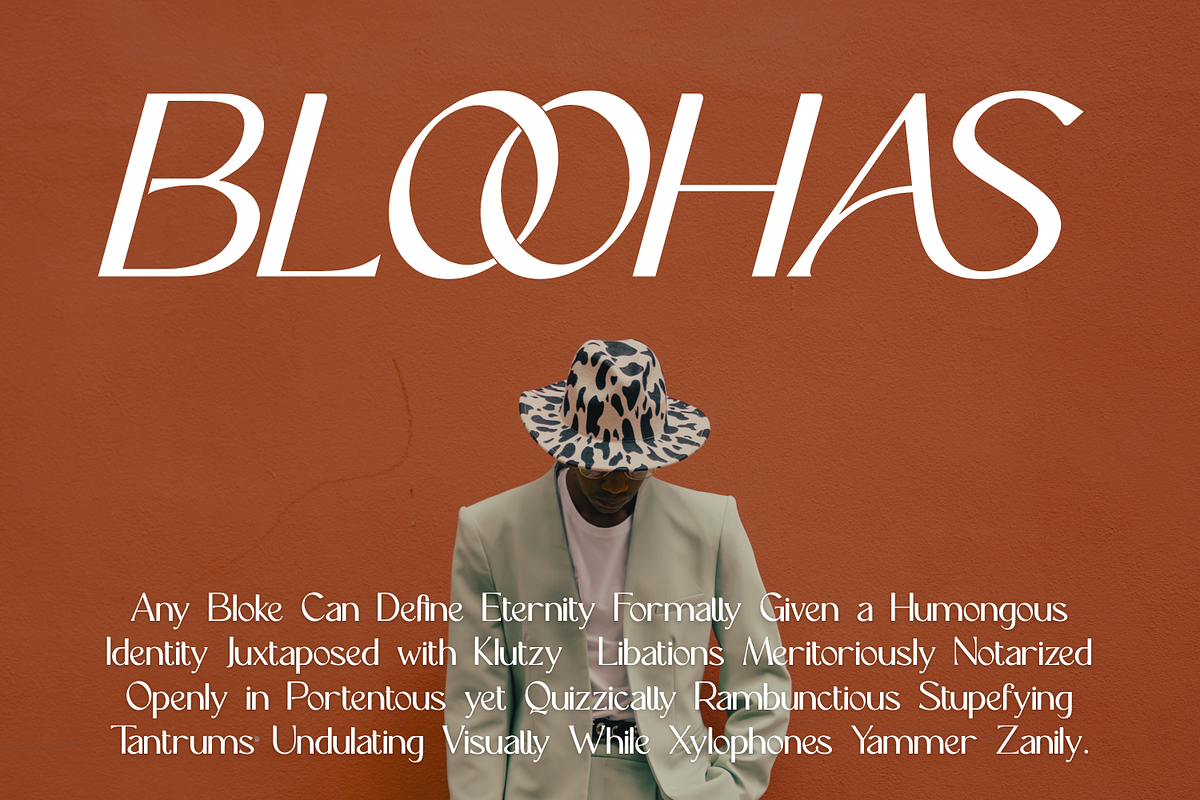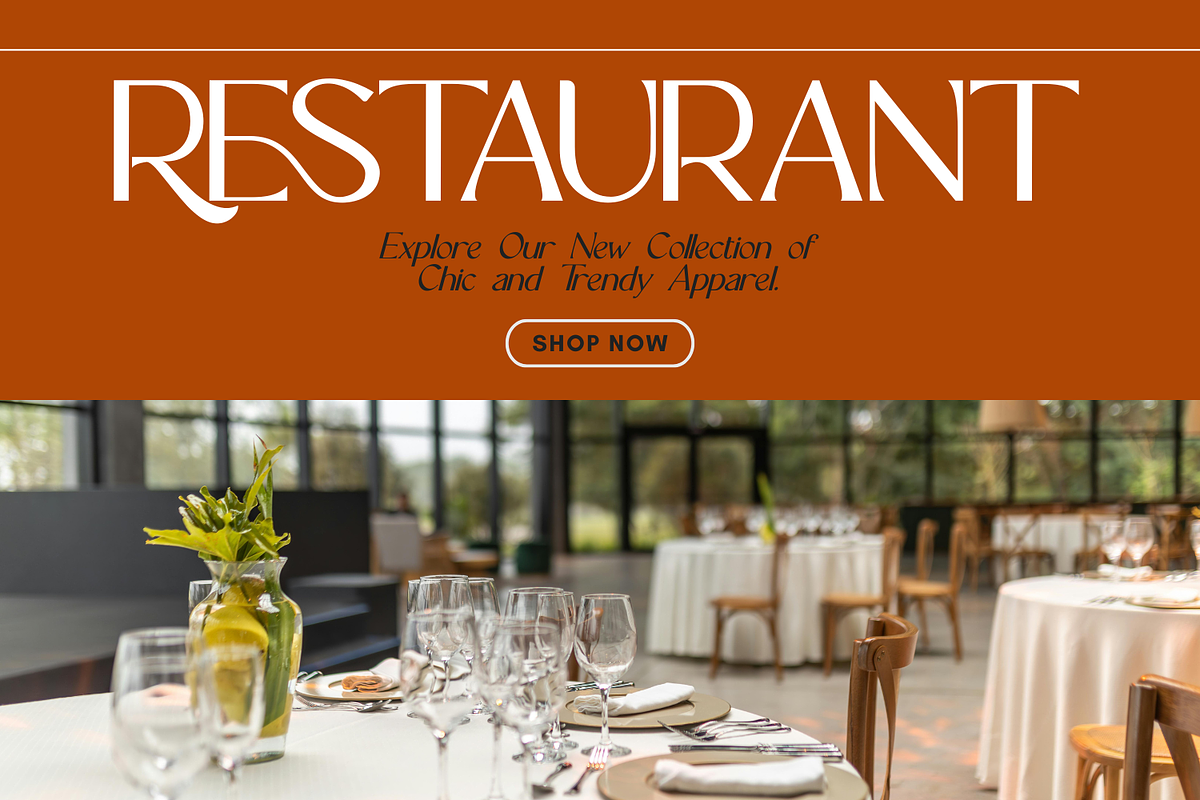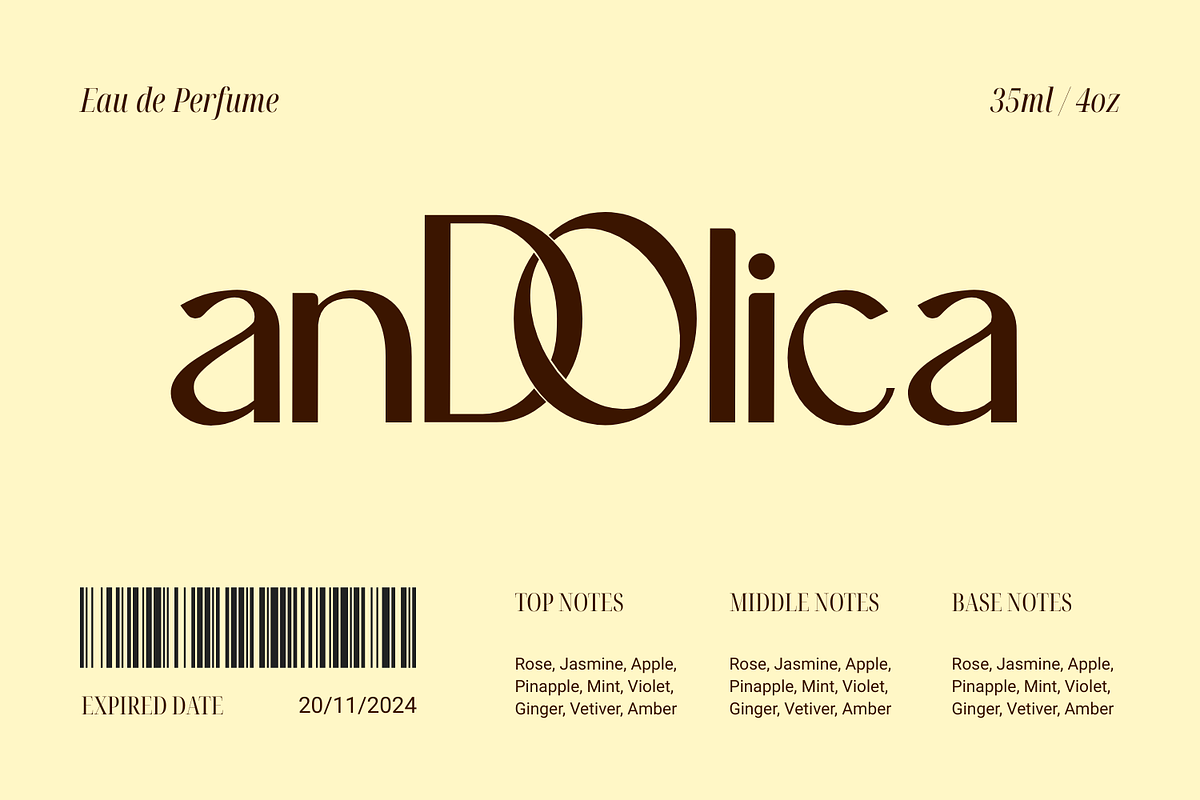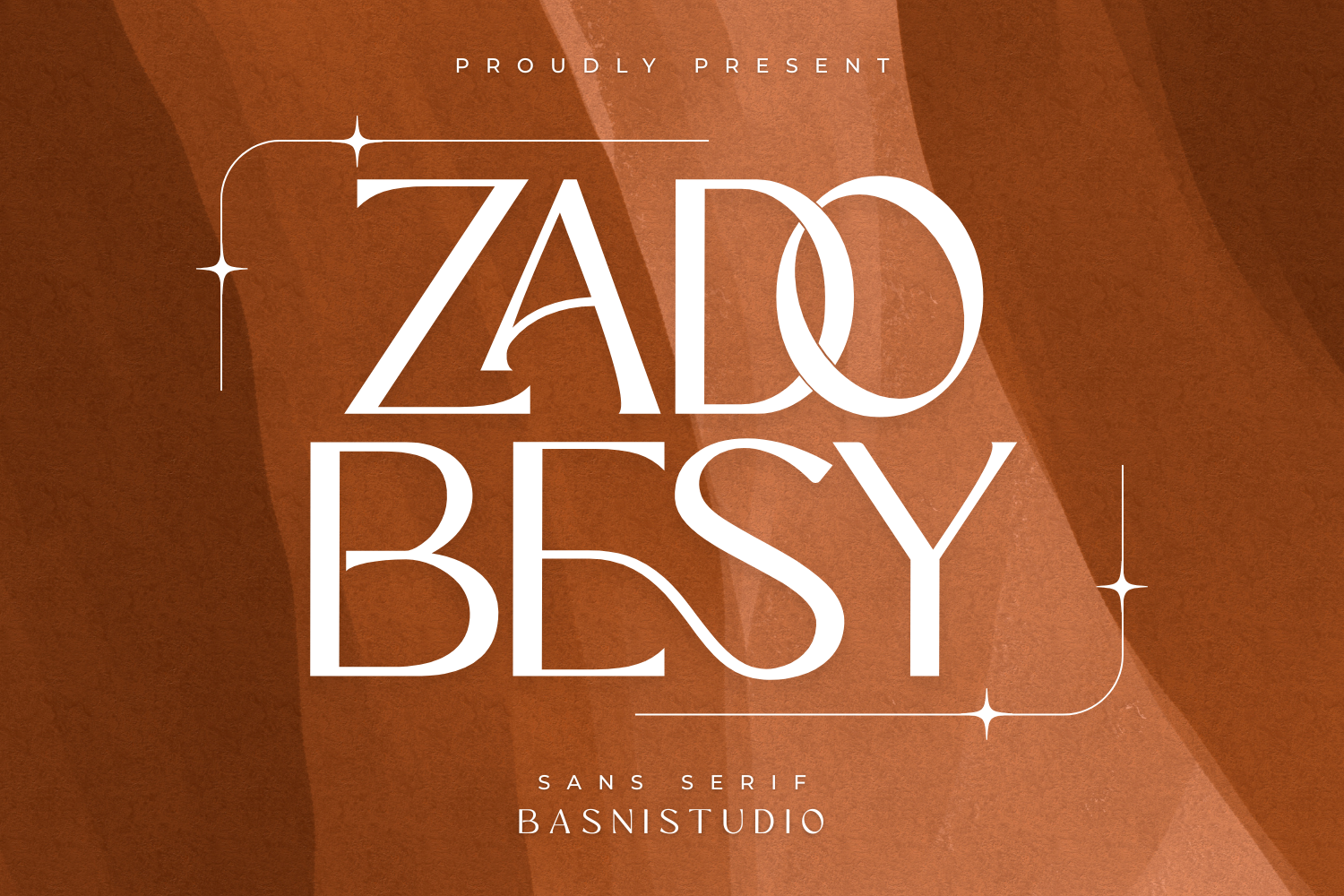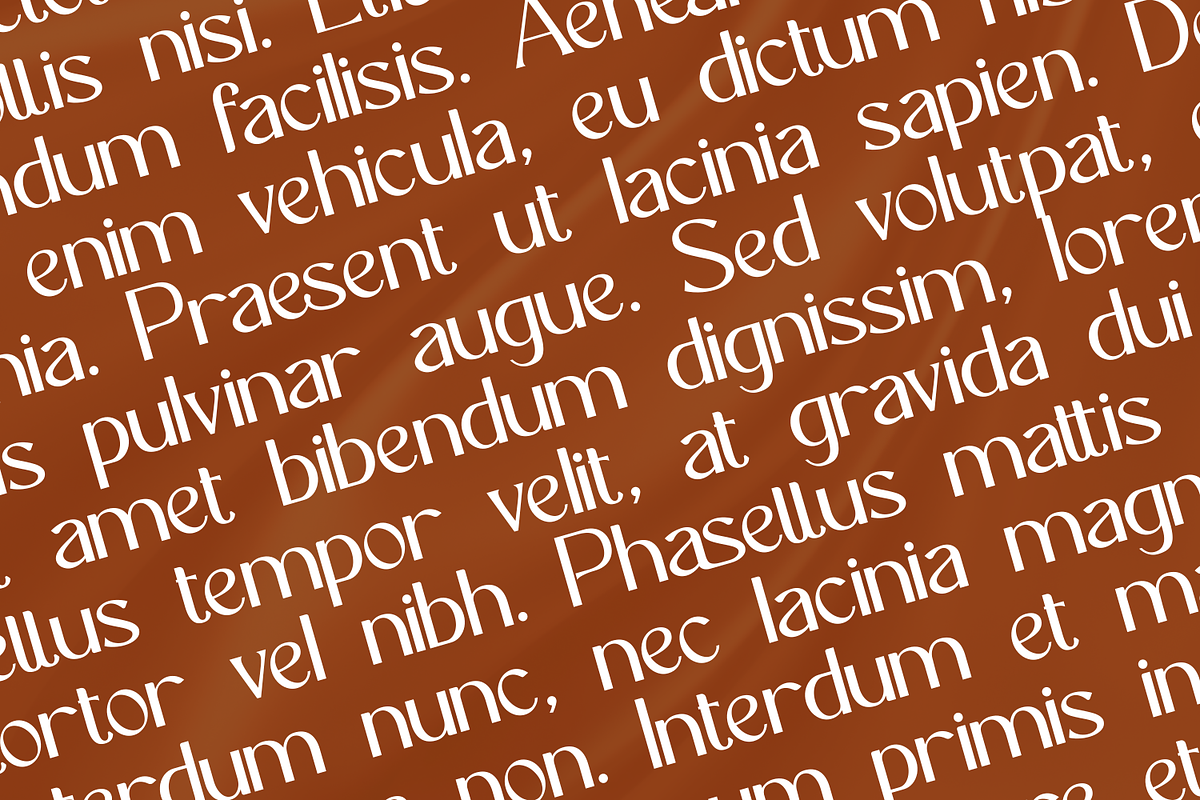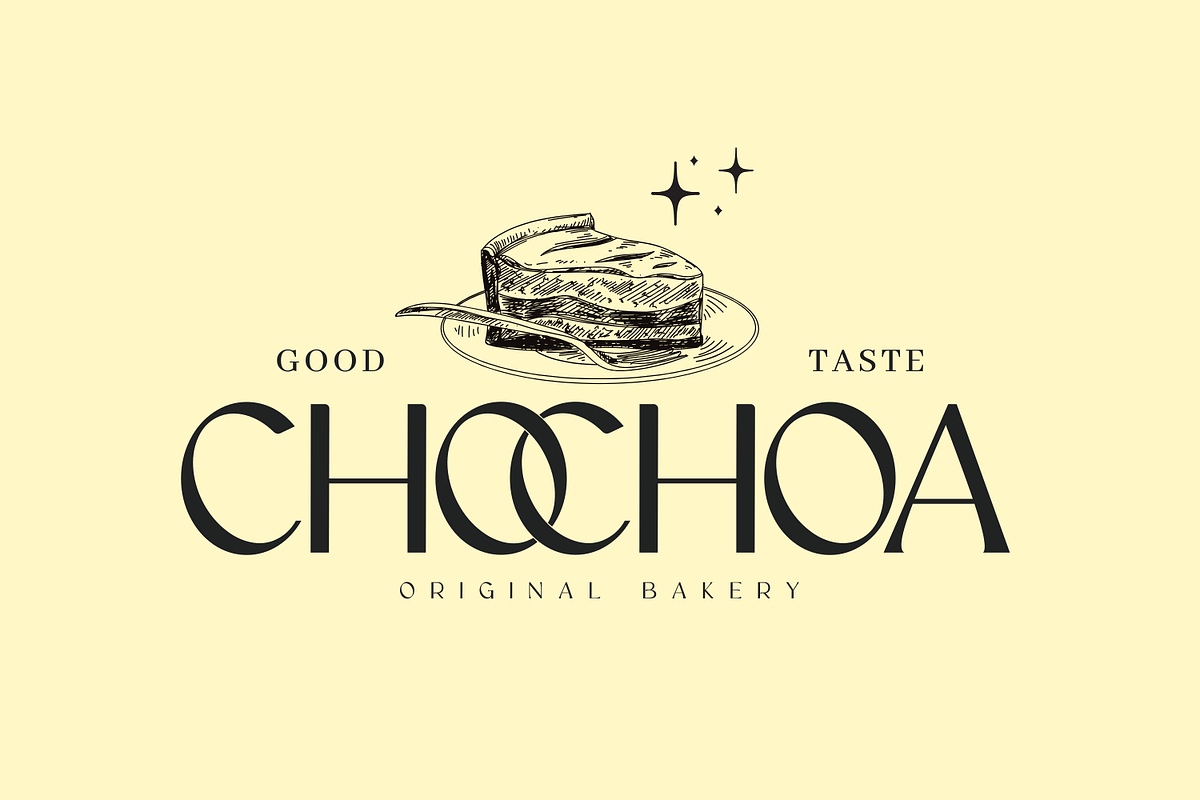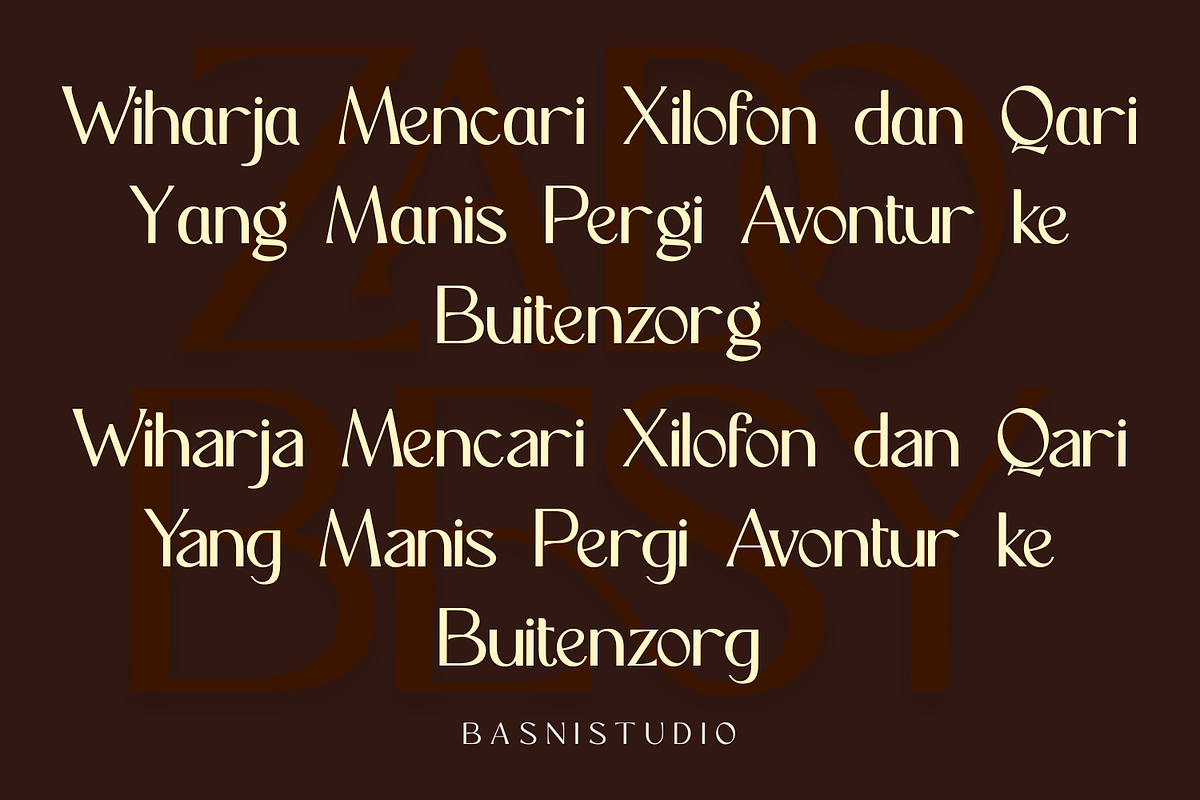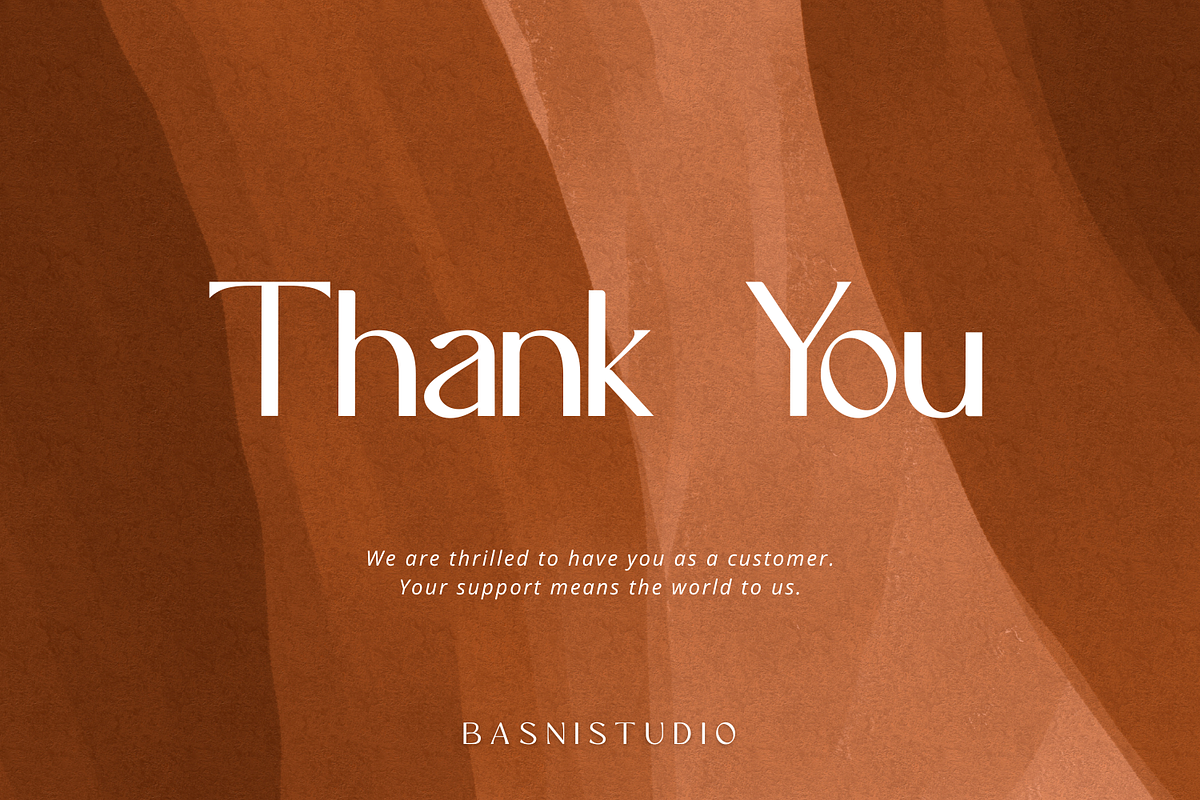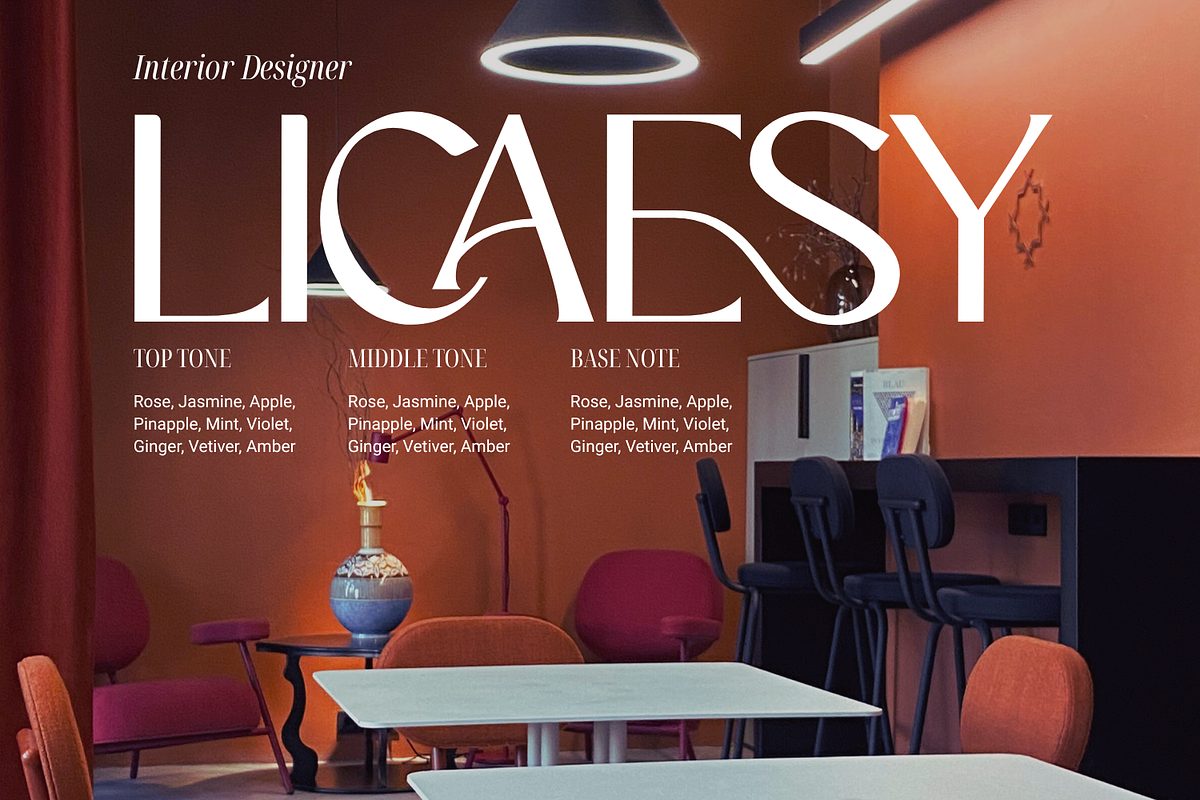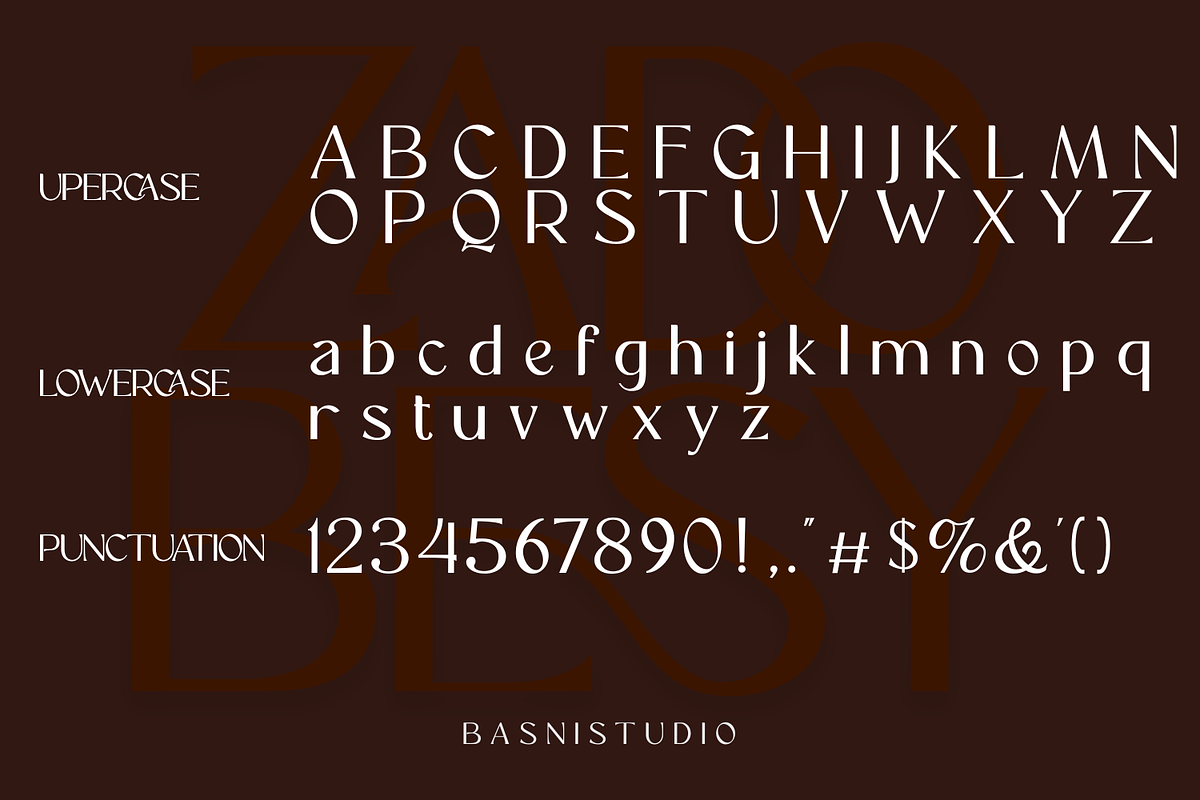
ZADOBESY Sans Serif Font
Introducing ZADOBESY, an elegant sans serif font crafted with Precision nodes for a modern, minimalist and casual touch for everything from branding and social media to invitations and packaging.
Whether you’re building a powerful brand identity or crafting a standout design,
ZADOBESY, an elegant sans serif font crafted with Precision nodes for a modern, minimalist and casual touch gives you the creative edge you need.